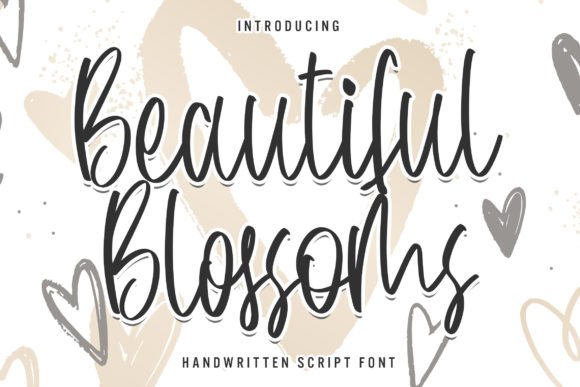
Introduction to Beautiful Blossoms Font
Beautiful Blossoms is a casual, flowing and cursive handwritten font.
It looks stunning on invitations, thank you cards, quotes, greeting cards, logos, business cards and every other design which needs a customized touch .
Beautiful Blossoms Font offers exceptional quality and versatility, making it a valuable addition to your design toolkit. Whether you’re creating for personal projects or commercial use, Beautiful Blossoms Font delivers professional results.